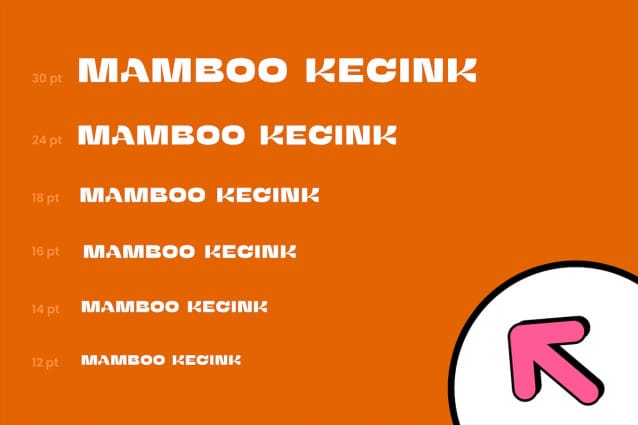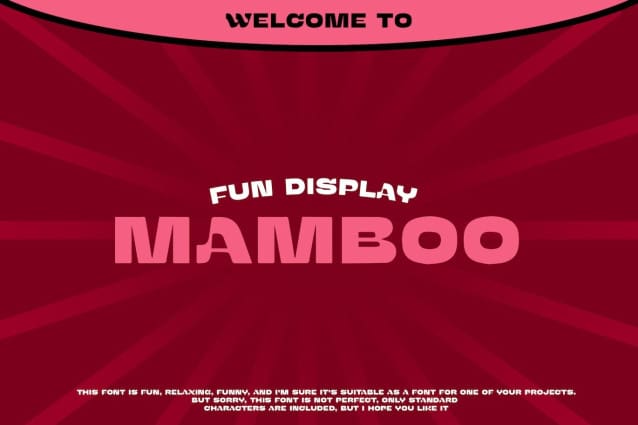
Mamboo Font
Mamboo Font is an attractive and prominent display font with unique characteristics. This font is designed in an expressive and stunning style, featuring large, bold and artistic letterforms. Each letter in the “Mamboo” font has a striking presence, conveying a bold and vibrant feel.